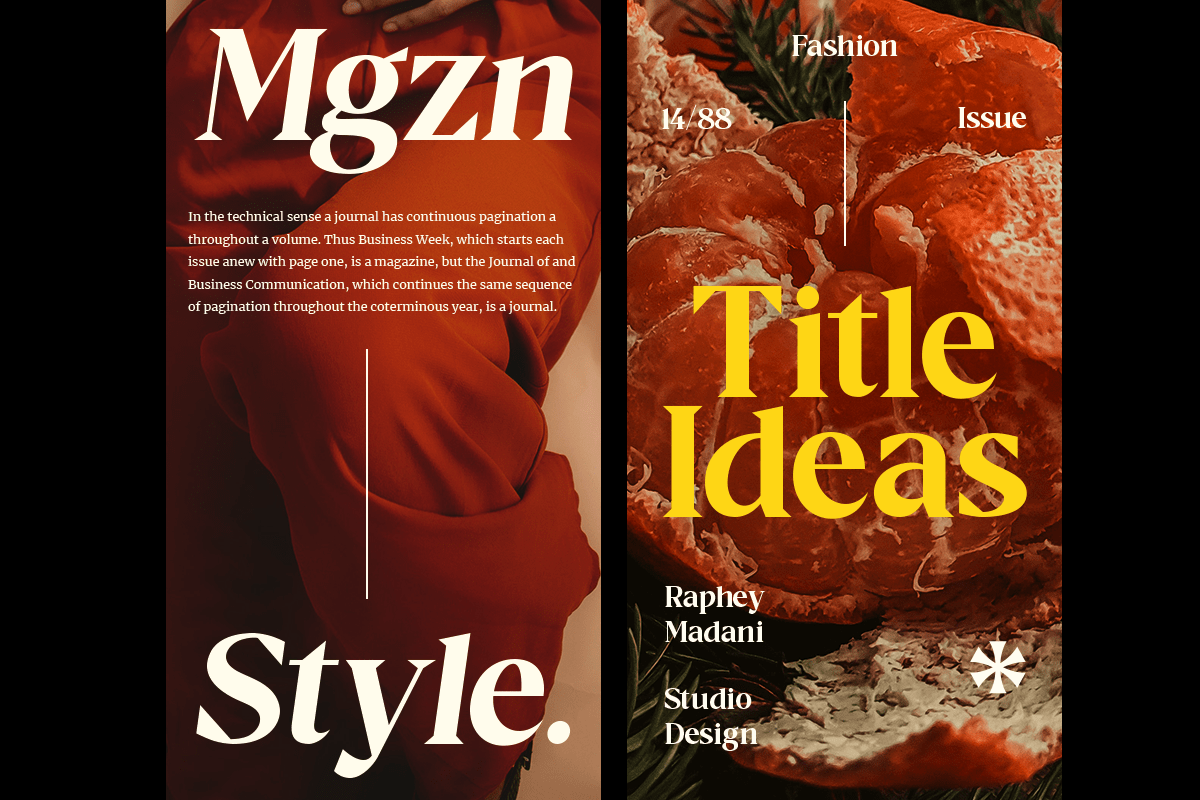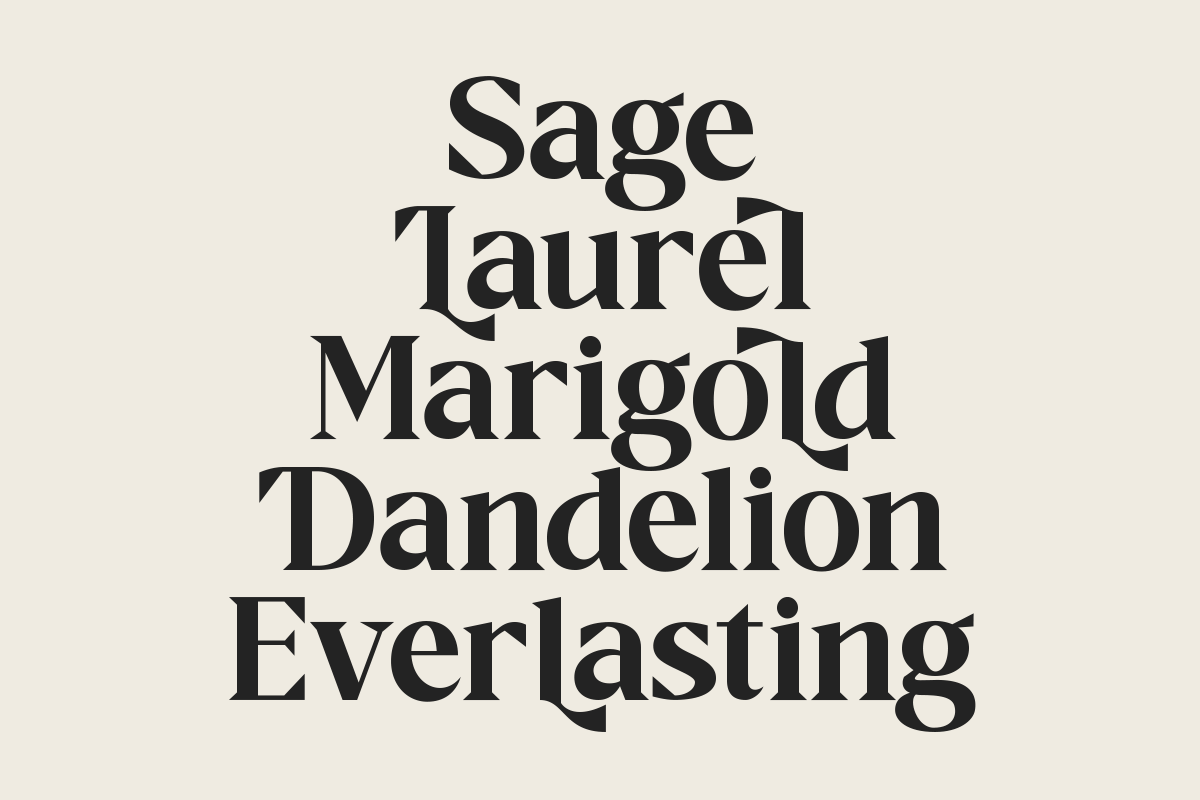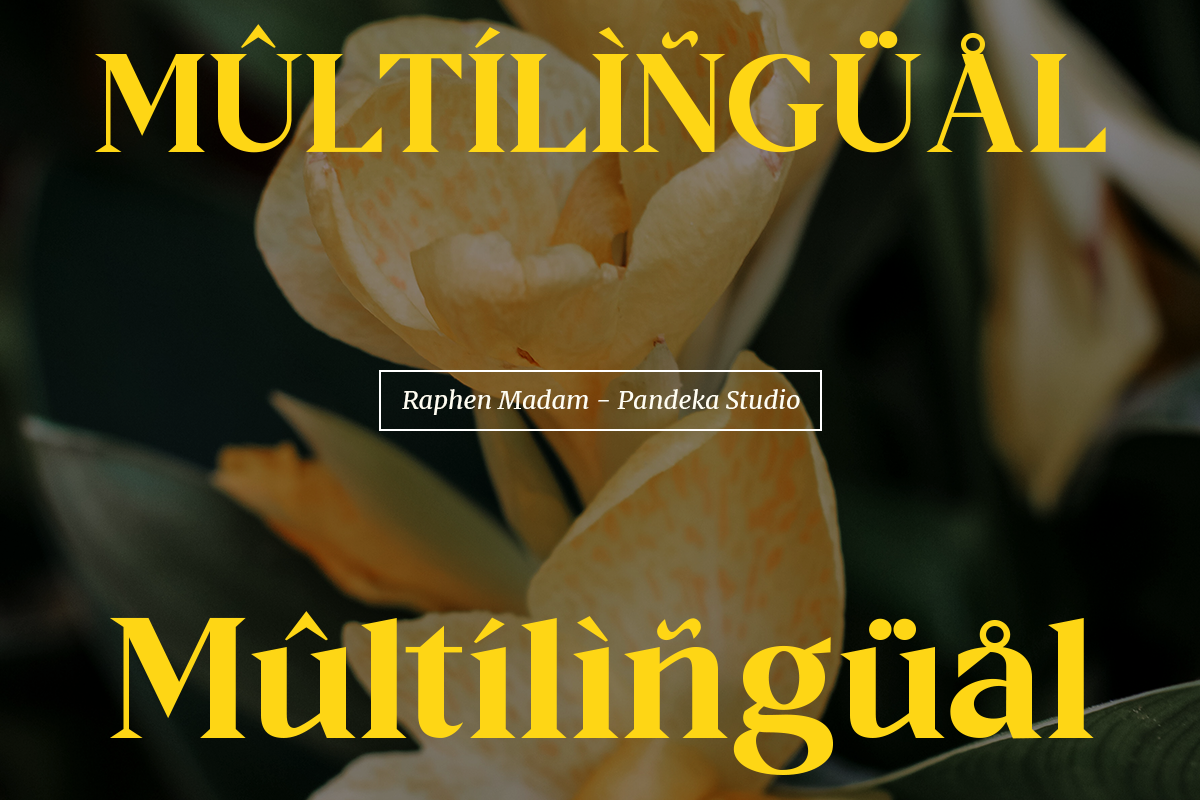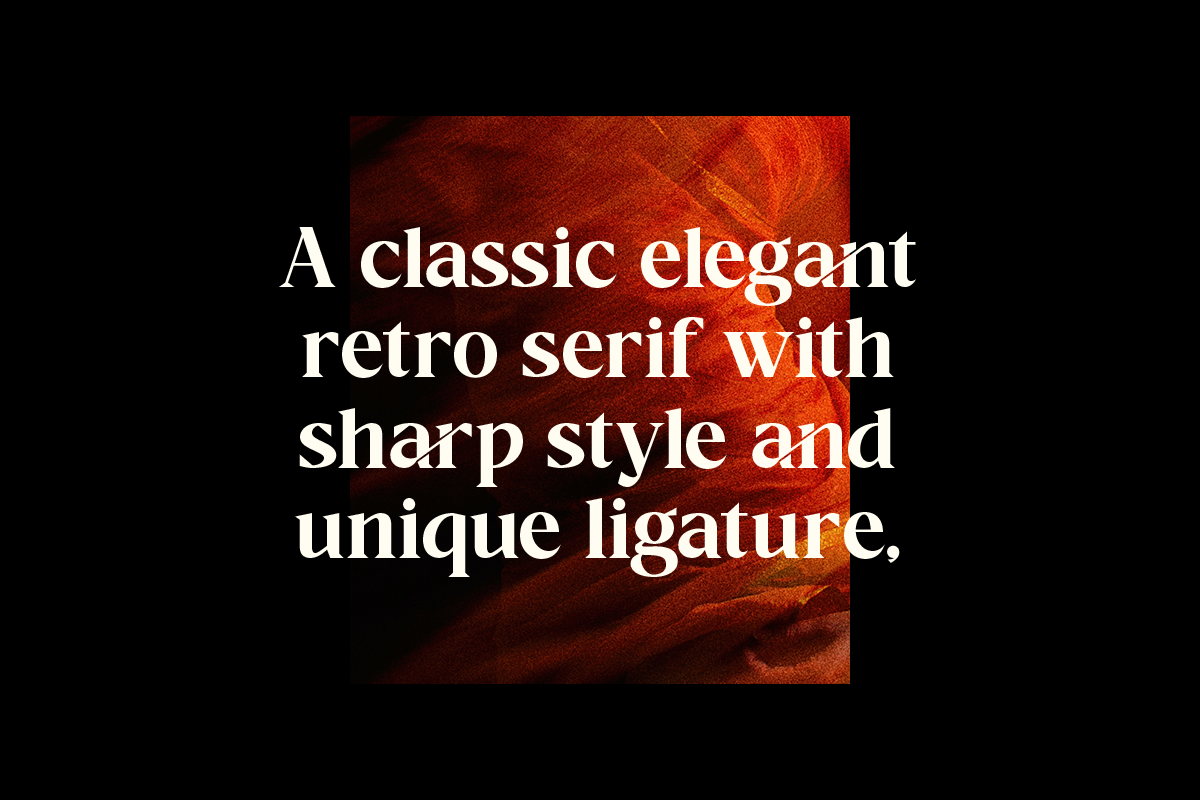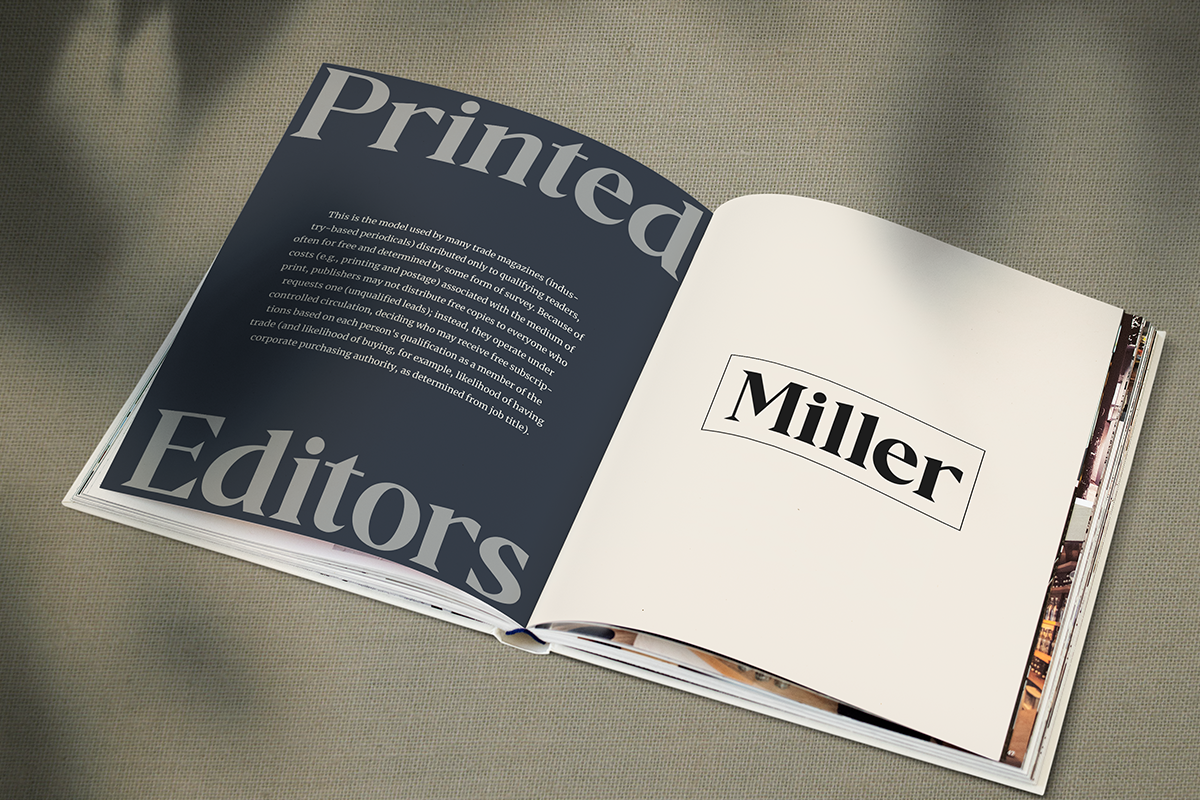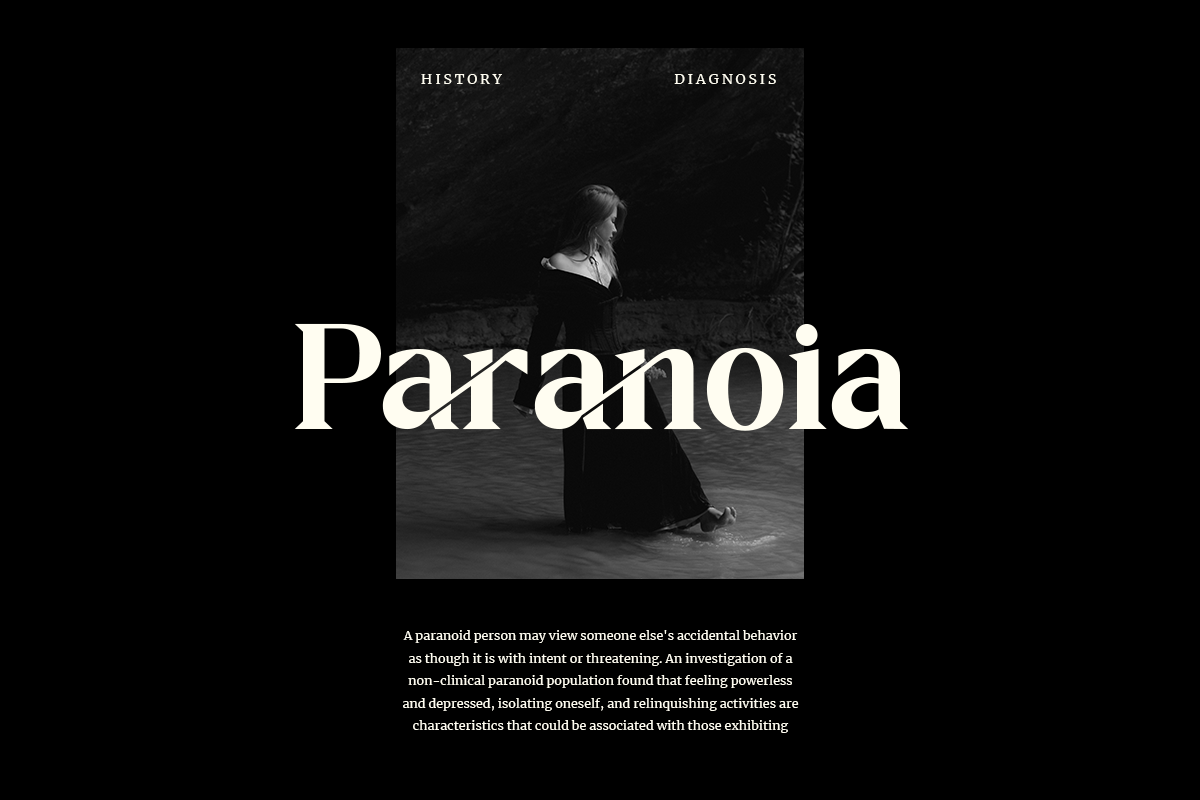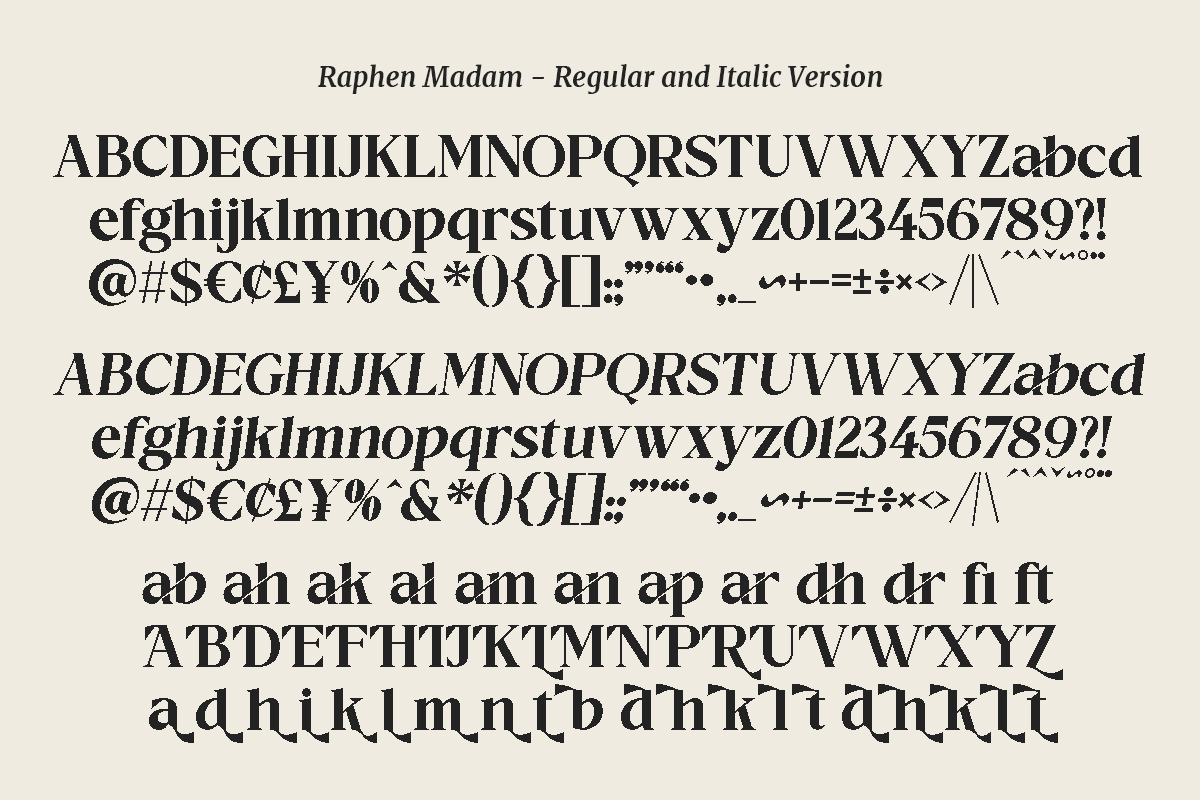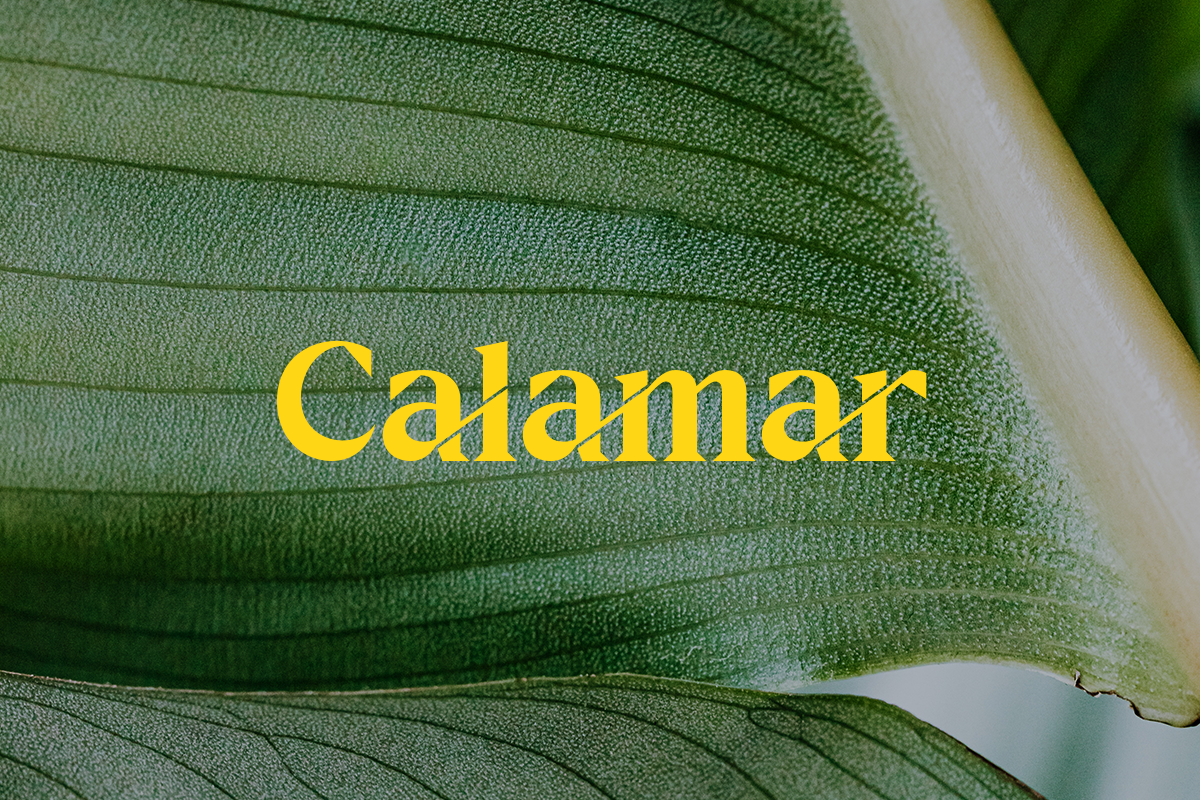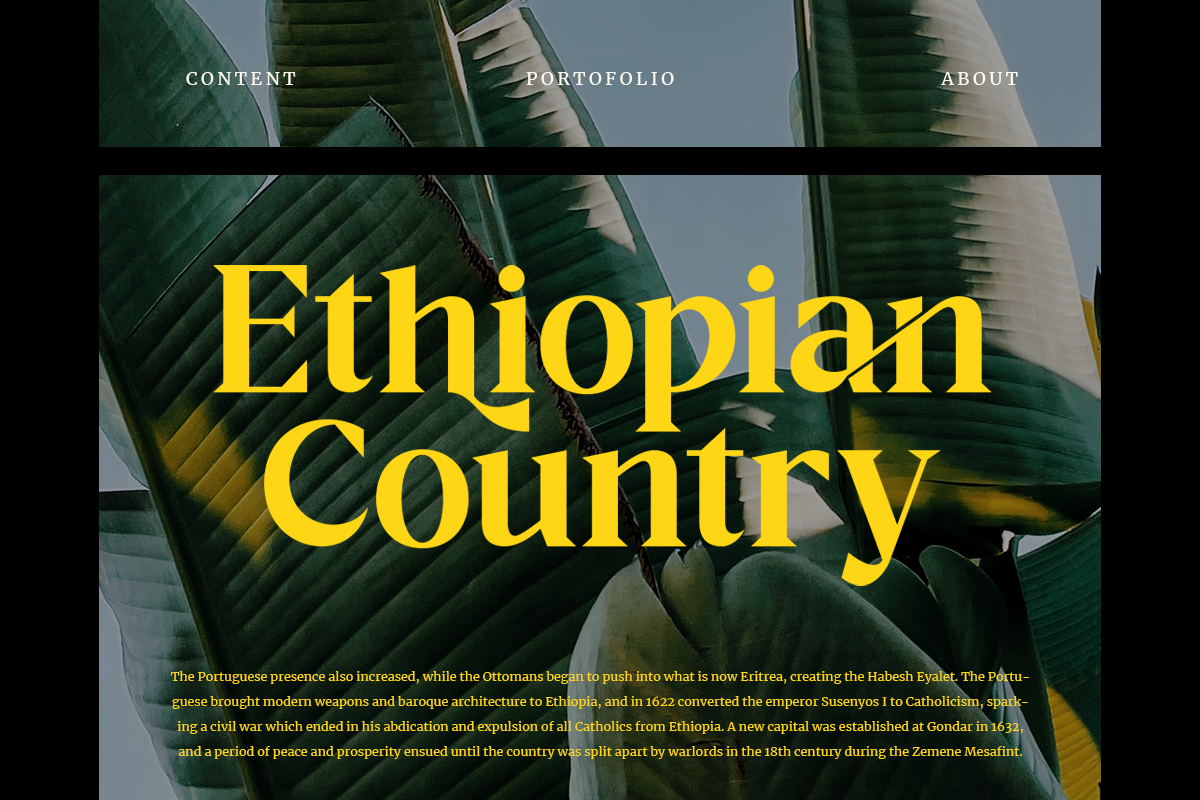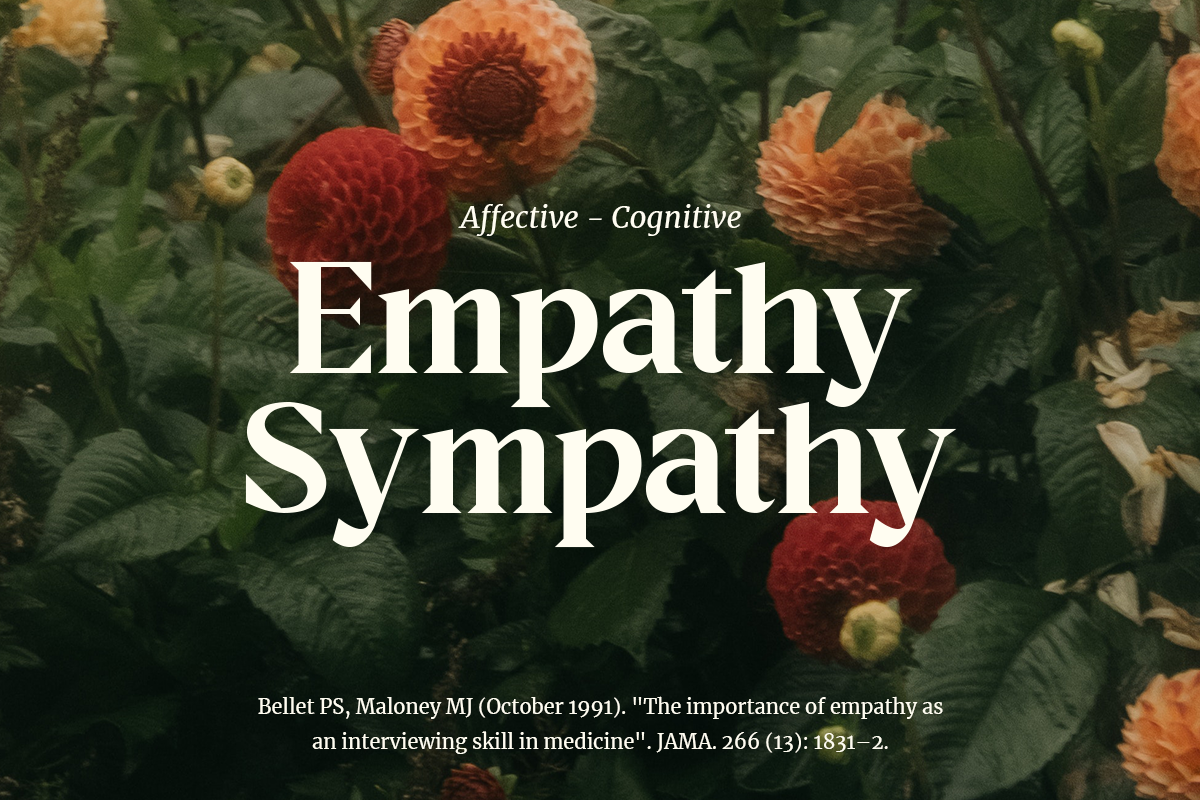
Raphen Madam - Classic Elegant Serif
Say hello to new Classic Elegant Serif, Raphen Madam!
Raphen Madam - Classic font that we create with unique shape and any creative ligature and alternate perfect for branding or logotype design.
Raphen Madam - Fearless and chic typeface perfect for big headlines for both print and web. It comes with Italic style, unique lower and uppercase plus numbers, punctuation & multilingual letters
- Regular and Italic
- Letters, numbers, symbols, and punctuation
- Has 37 beautiful alternates and ligatures